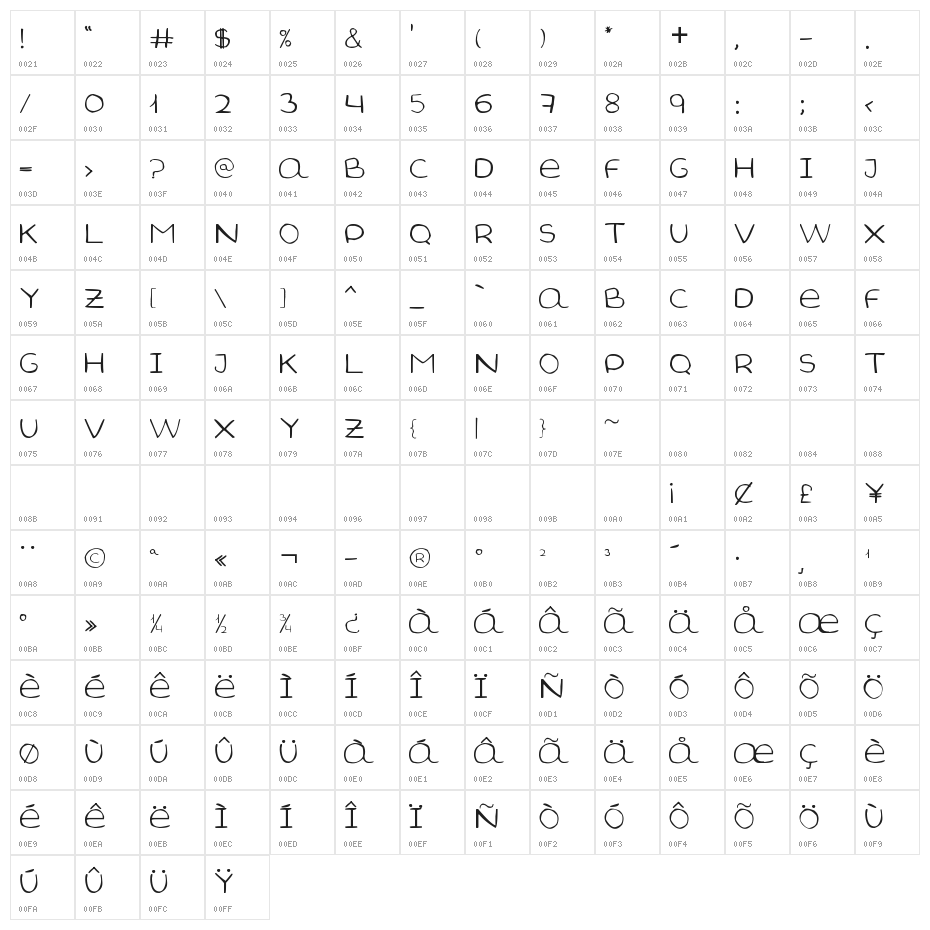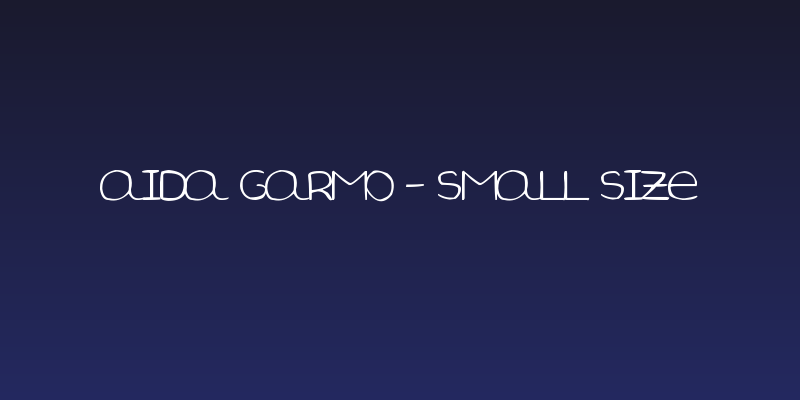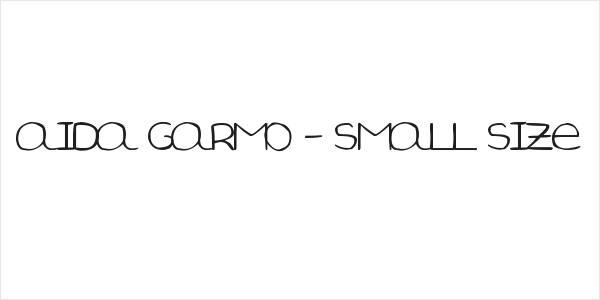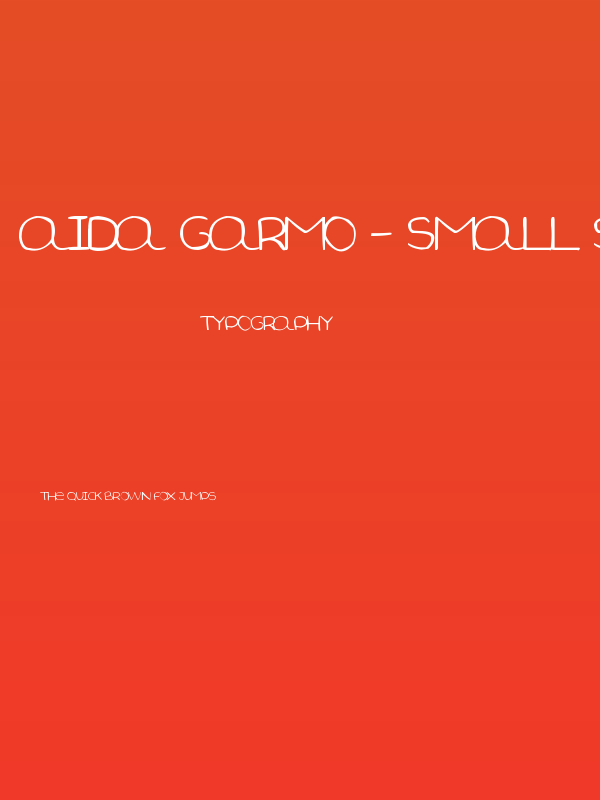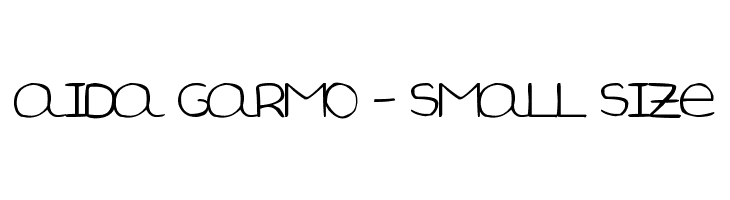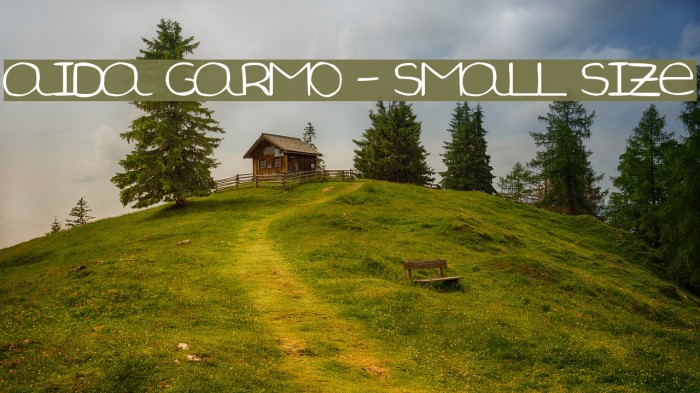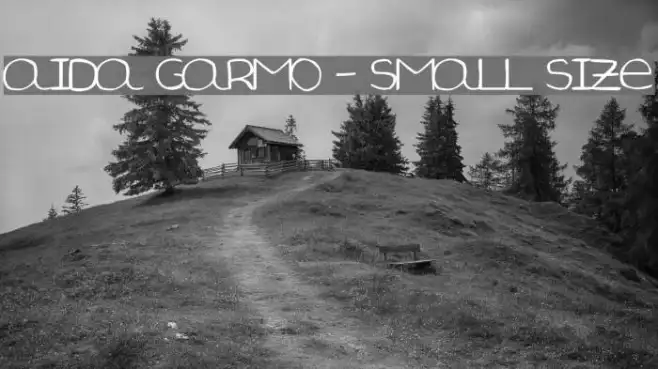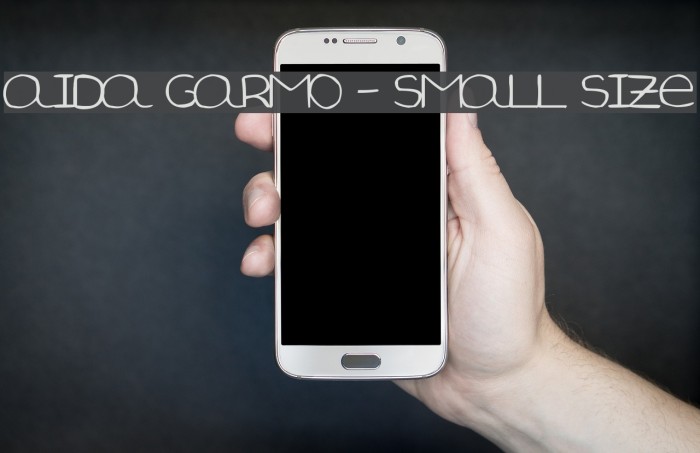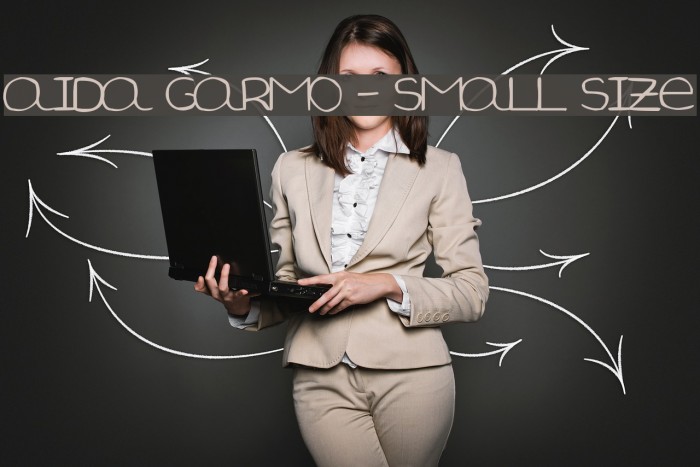
Aida Garmo - Small Size Font
Aida Garmo - Small Size Description
This font features a playful and whimsical design with a handwritten style. The characters are rounded and slightly irregular, giving it a casual and friendly appearance. The uppercase and lowercase letters maintain a consistent style, with smooth curves and a slight tilt that adds to the informal feel. Numbers and special characters are designed to match the overall aesthetic, ensuring a cohesive look across all text elements. The font's unique character shapes make it stand out, making it suitable for creative and informal projects.
| Use Case | Headlines, Logos, Informal text |
| Proposed Projects | Ideal for children's books, greeting cards, playful branding, and casual invitations. |